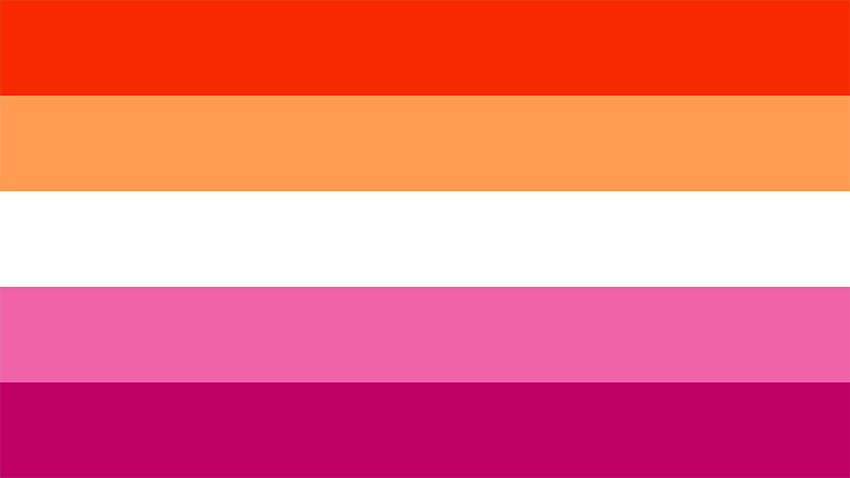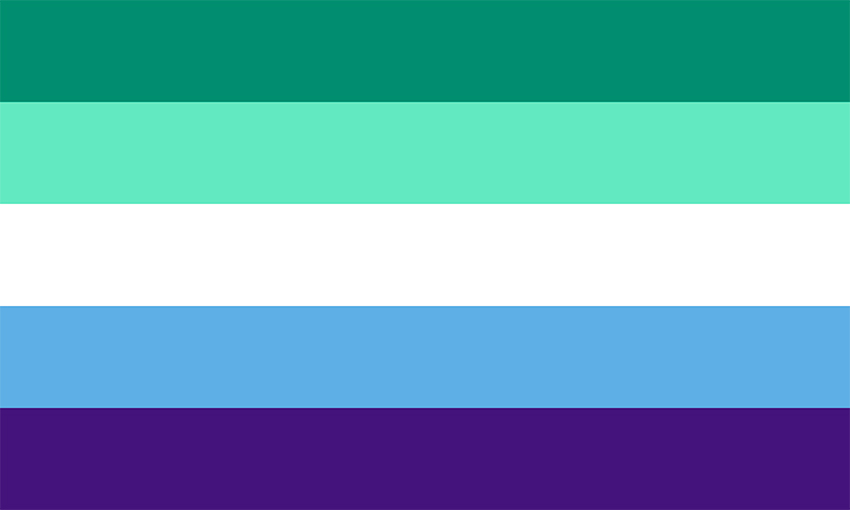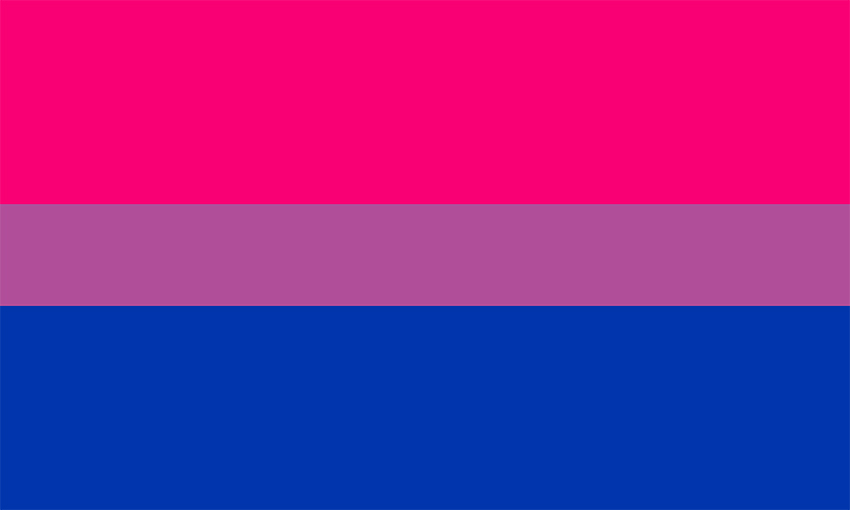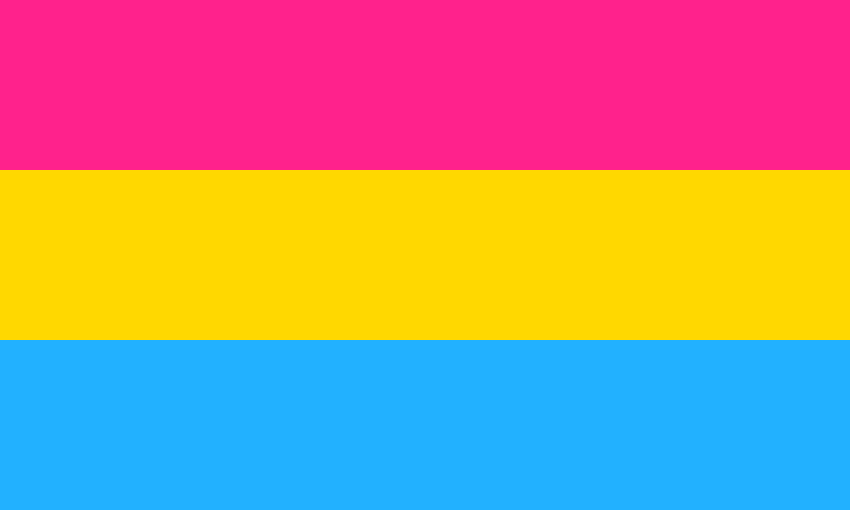
Pride Art & Graphic Design: From the Pink Triangle Origins to the Gilbert Font
Curious about the origins of Pride Art? In this article, we'll take a look at the origins of the Pink Triangle, the Gilbert Baker pride flag, Keith Haring's LGBT art, and the Gilbert font.
The LGBT community and their fight for equality have made great strides. Graphic design and specific LGBT visuals have played an important role in many protests throughout the years. In this article, we'll look at everything related to LGBT art and the universal symbol for LGBT people, the rainbow flag designed by Gilbert Baker. We'll go as far back as the origin of the infamous Pink Triangle. We'll analyze and take a look at the visual language of the different LGBT groups that were formed throughout the years and how they've progressed.
The Pink Triangle: From Discrimination to Pride Art
This symbol was enforced during the Nazi period in Germany from 1933 to 1945. A downward-pointing triangle was sewn onto the shirts of camp prisoners to identify them as LGBT individuals. The Nazis assigned a black triangle badge for sex workers, lesbians, trans men, and those they called anti-social people. The anti-gay law in Germany was made in 1871, many individuals remained in jail until the 1970s, and the law was finally revoked in 1994.
In the 1970s, the pink triangle was reclaimed as a symbol of liberation. The triangle began to appear amongst more LGBT groups. Gran Fury was a collective of activists from New York City that came together to end the AIDS crisis. In the late 1980s, the group designed a poster with the pink triangle pointing upwards and with the words "Silence = Death". The triangle became a symbol of the AIDS defense movement. While LGBT rights have evolved, the Pink Triangle has become an empowering representation of the dark past and the need to overcome the discrimination that many people still face to this day.
Mattachine Society: Early LGBT Art
The Mattachine Society was one of the earliest organizations in the U.S. that wanted to protect and improve the rights of gay men during the 1950s. Their visual approach was calmer and more pacifying; the images represented peacemaking rather than a demand for change.
Later on, after the spontaneous and violent Stonewall Riots, the Mattachine campaign took a different approach. Their graphic style represented real LGBT demands and they were written on windows of the Stonewall Inn. The message read: "We homosexuals plead with our people to please help maintain peaceful quiet conduct on the streets of the Village" — Mattachine
Gay Liberation Front Poster
The Gay Liberation Front chose bolder and more prominent visuals. They confidently used the word "gay" alongside provocative symbols that sparked discussions on sexuality.
The group was formed right after the Stonewall Riots in the late 1960s. The Gay Liberation Front in the UK used similar language to the one in the United States.
Visually, the Gay Liberation Front poster was striking by using only black and white colors, thick lines, and a tabloid style with dominant typography. Sans serif fonts were used widely, not only because they come across as gender-neutral but also because they tend to be stronger and more powerful: perfect for sociopolitical movements.
The Pride Flags
In his memoir, Gilbert Baker wrote that the LGBT community needed a new symbol as the pink triangle was forcefully imposed by Adolf Hitler on homosexuals and it portrayed a dark past. He wanted to create something that represented the community from a positive perspective. Gilbert Baker’s original pride flag includes bright colors that have a positive meaning and accurately showed the characteristic vitality of the community.
Over the years, the original Gilbert Baker pride flag has been adapted and modified and has inspired other flags and rainbow pride graphics for the LGBT community. We'll review some of them below, and make sure to check out more resources to learn about other flag variations.
Gilbert Baker Pride Flag
Baker assigned a meaning to each of the eight colors on the first rainbow flag: sex (pink), life (red), healing (orange), sunlight (yellow), nature (green), magic/art (turquoise), serenity (indigo), and spirit (violet). However, the pink dye was too costly, leaving the flag with seven colors at first. Then the committee for the 1979 Gay Freedom Day Parade wanted to fly the flag in two halves, so the turquoise was removed from the flag. Eventually, the Gilbert Baker pride flag ended up with six colors, as turquoise and pink were cut off from the rainbow.
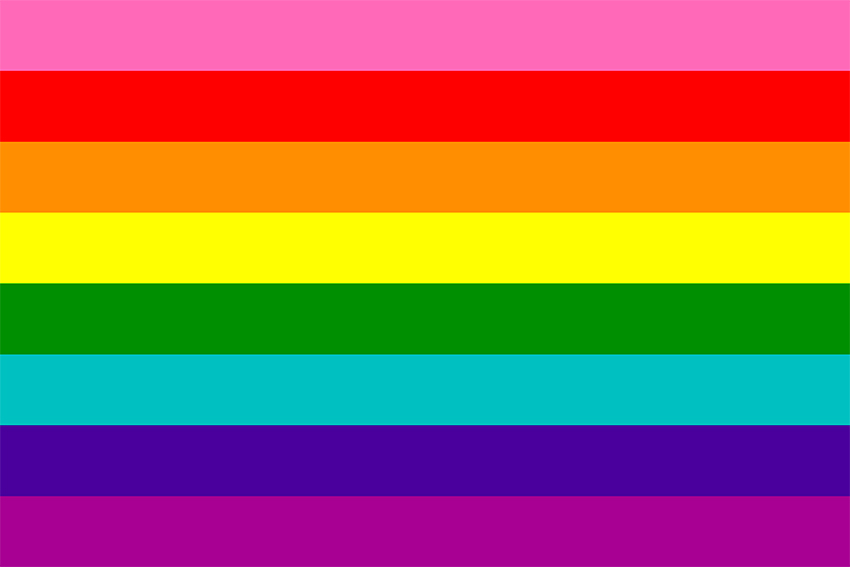
Gay Pride Flag
The six-stripe version of the Gay Pride flag was introduced in 1979, and it's one of the most widely accepted and recognized versions. Red, orange, yellow, green, blue, and purple, the six colors in the Gay Pride flag, stand for life, healing, sunlight, nature, serenity, and spirit. The rainbow graphic can be seen and identified with LGBT pride all around the world.